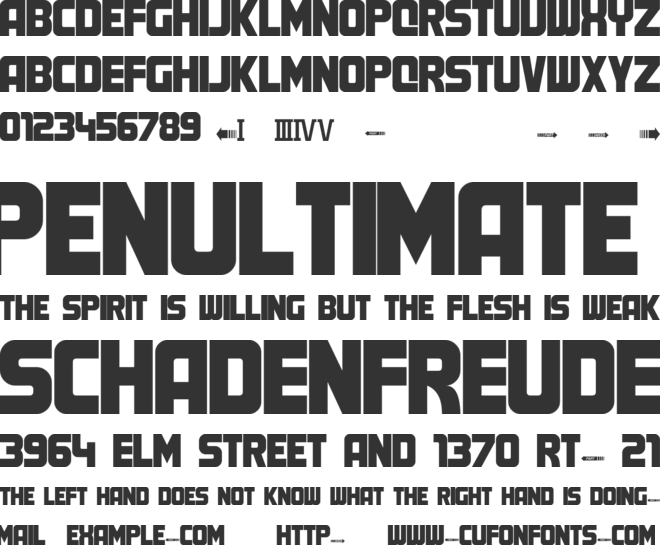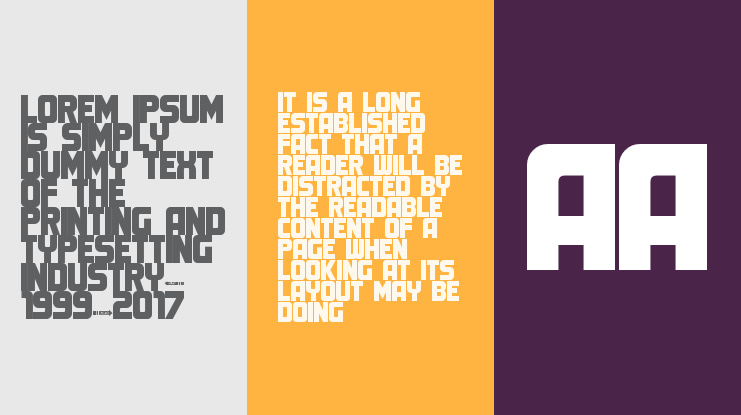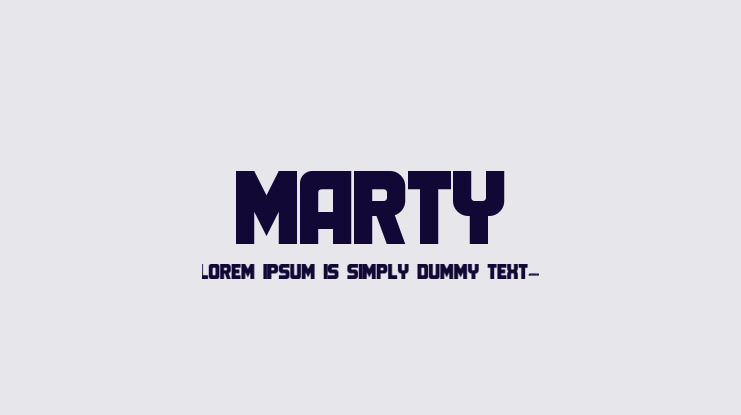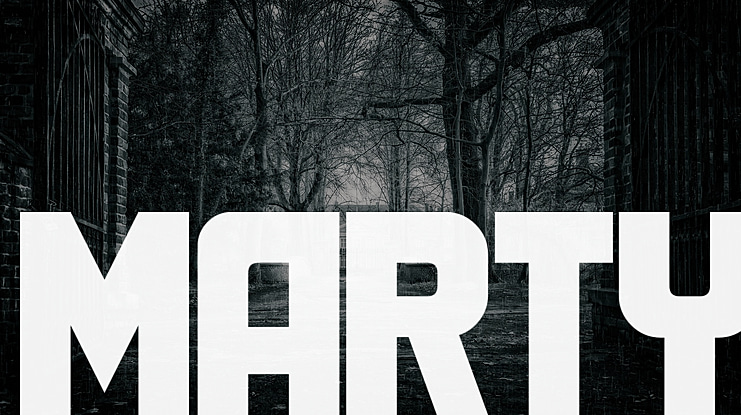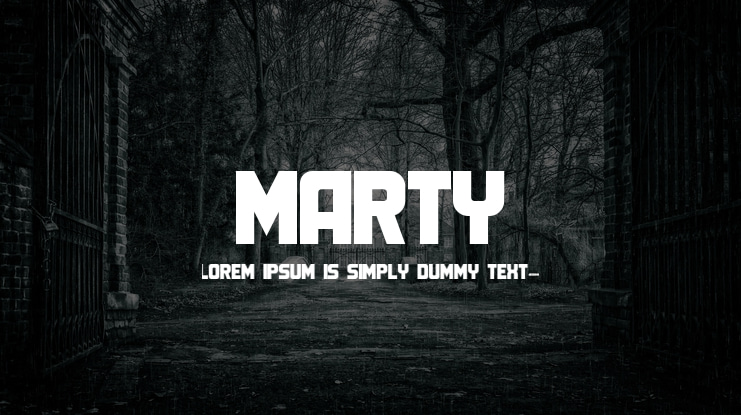
Marty Font
Hi Back to the Future fans,
with the help of my Marty font you can create a logo like the one attached. The font and the logo are created with CorelDraw.